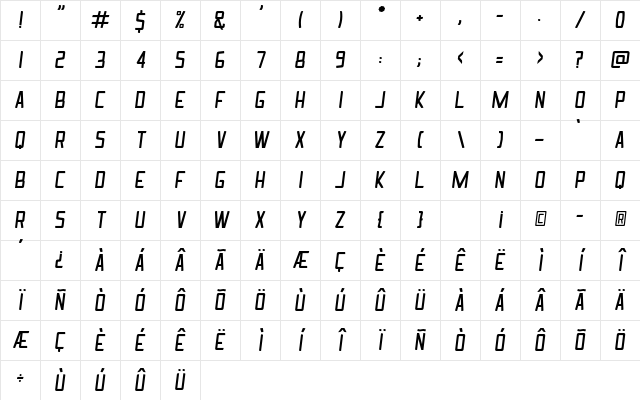
Ingrata Italic Free Font
Ingrata Italic
Foundry: a Falange | est?dio. Elvis H. Martuchelli - Vinicius de Abreu Lima - Ricardo Jacob Hessel
Designer: Elvis H. Martuchelli @ a Falange | est?dio
Design Context for Ingrata
Ingrata is a composed and adaptable typeface that performs quietly and consistently across a wide range of design contexts. The slanted form adds forward momentum and visual energy.
Pro Tip: Use Ingrata for emphasis, pull quotes, and subheadings where its slanted energy can add rhythm to the layout.
Who designed the Ingrata Italic font?
This font was published by a Falange | est?dio. Elvis H. Martuchelli - Vinicius de Abreu Lima - Ricardo Jacob Hessel. Check the technical specs section for copyright and designer details.